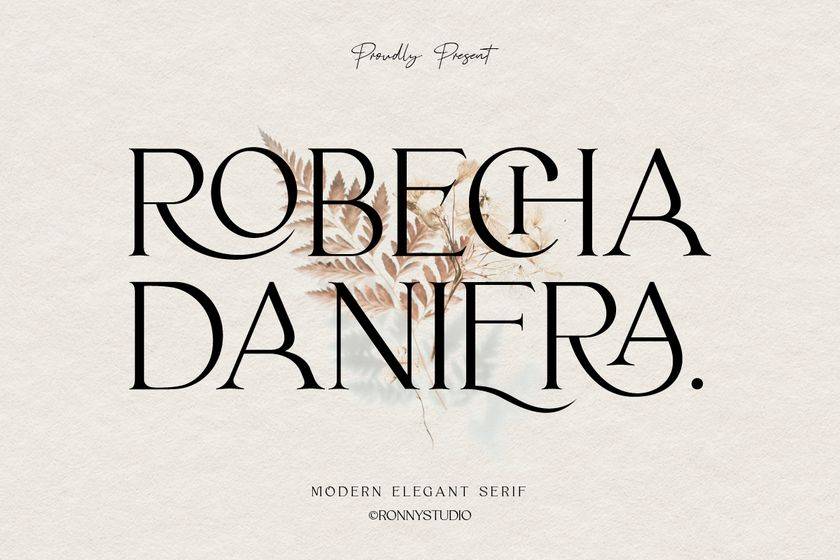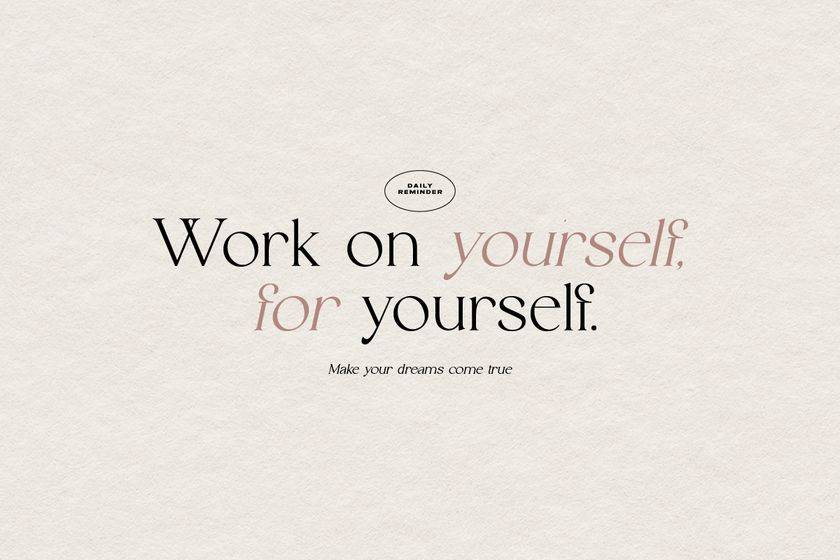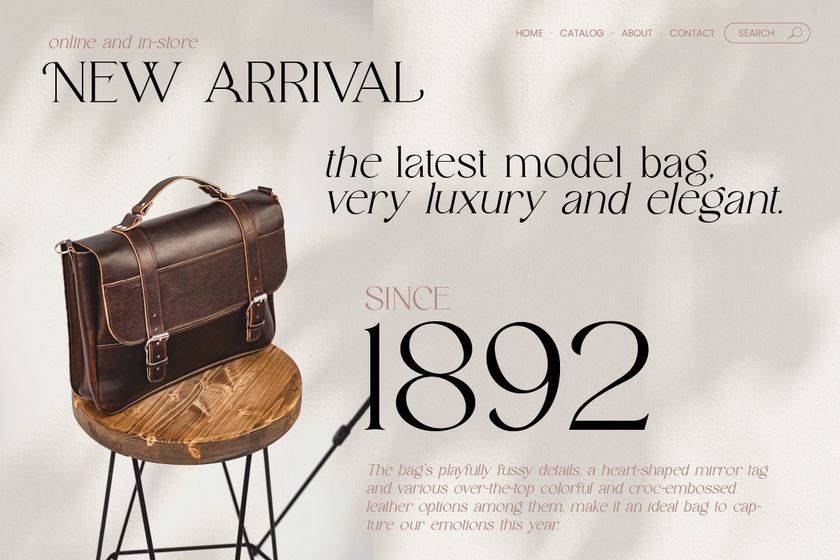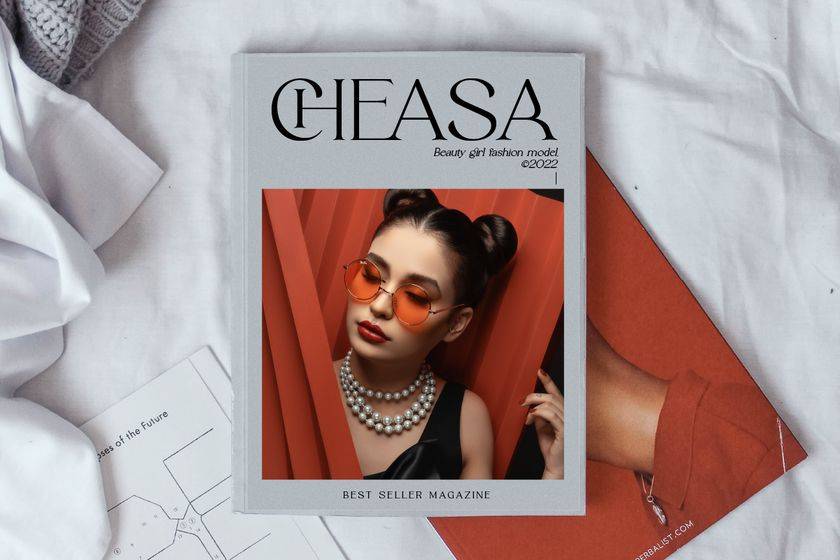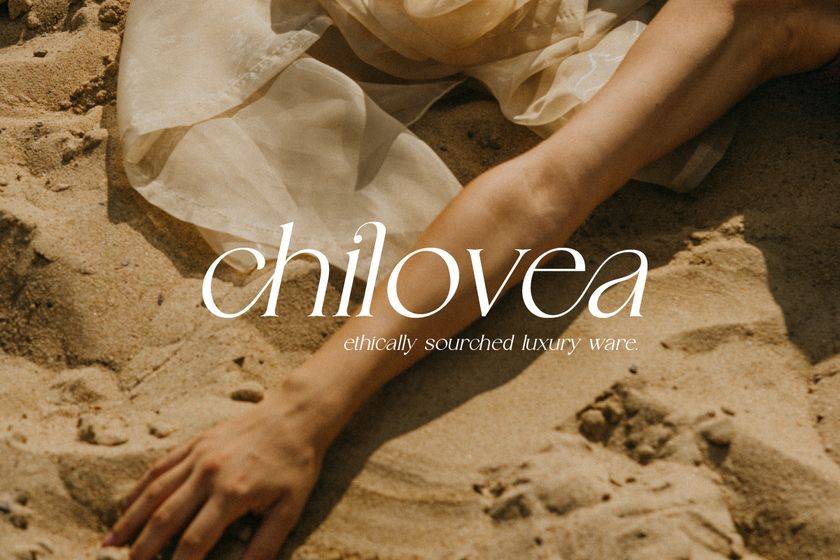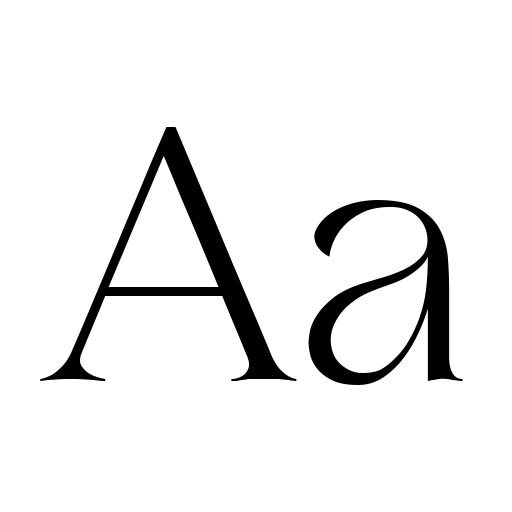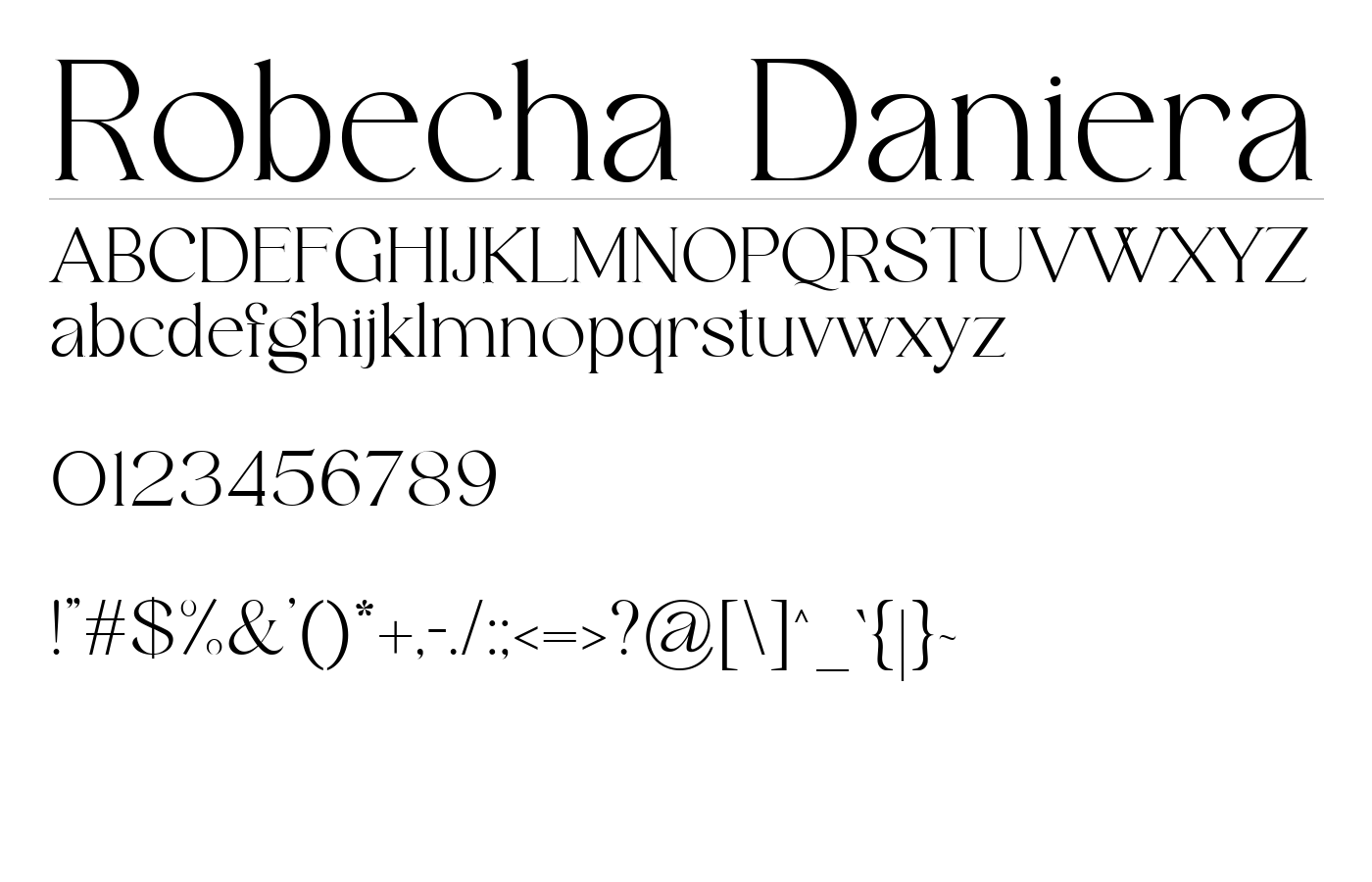
Robecha Daniera is an elegant serif font characterized by its thin, refined strokes and high contrast between thick and thin lines, giving it a sophisticated and classic appearance. Its tall x-height, delicate serifs, and gently curved letterforms make it perfect for luxury branding, editorial design, and upscale headlines where a touch of timeless refinement is desired. This font blends tradition with modern clarity, making it ideal for fashion, magazines, and elegant packaging.
About Robecha Daniera Font